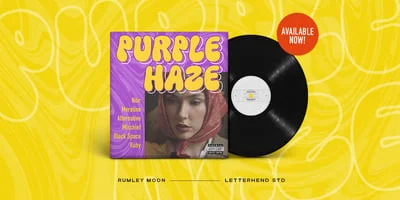
Rumley Moon Font
Rumley Moon Font is an exceptional choice for projects that demand a whimsical, dreamy, and distinctly magical aesthetic, often evoking a sense of childlike wonder and fantastical narratives. It's perfectly suited for children's storybooks, fantasy game titles, enchanting invitations, whimsical branding for sweets or toys, and any design where you want to imbue your work with a feeling of innocent charm and imaginative escape. Imagine it gracing the cover of a bedtime story, adding a unique and friendly touch to a magical-themed event poster, or giving a distinctive, handcrafted personality to a brand focused on creativity and dreams. Its soft curves and amiable character ensure your message is conveyed with both warmth and an undeniable sense of wonder.
What makes Rumley Moon Font so exciting is its ability to instantly infuse a design with a sense of playful magic and an endearing, slightly irregular charm. It offers a visual statement that feels both unique and universally heartwarming, making it perfect for designs that aim to feel approachable, spirited, and genuinely memorable. This font isn't just about conveying text; it’s about creating a delightful experience, bringing a sense of spontaneous creativity and genuine character to your visuals. It's the ideal tool for designers who want their work to feel friendly, inviting, and truly stand out with a touch of charming eccentricity.
The Rumley Moon Font family typically focuses on delivering its signature playful and dreamy style with precision. You might find a standard Regular weight that embodies its core whimsical design, along with potential variations that enhance its handcrafted appearance, such as slight stylistic alterations or perhaps a bolder version for emphasis. These nuances ensure that Rumley Moon Font can be the cornerstone of a truly unique and powerfully thematic visual identity, helping your designs stand out with an undeniable sense of character and lighthearted authenticity.